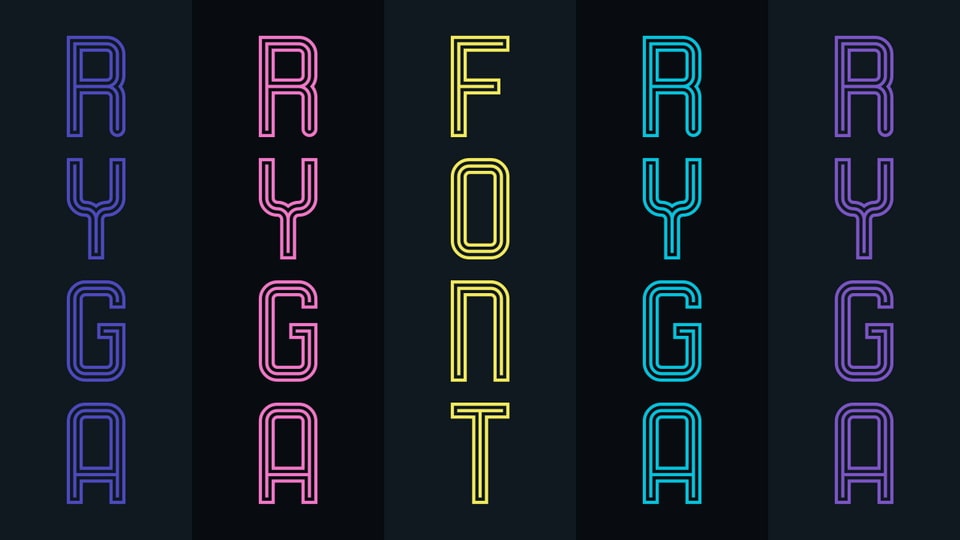
Download Ryga font, a bold and futuristic display typeface built for high-impact visuals. Its double-line stroke design and geometric letterforms evoke the glow of neon signage.